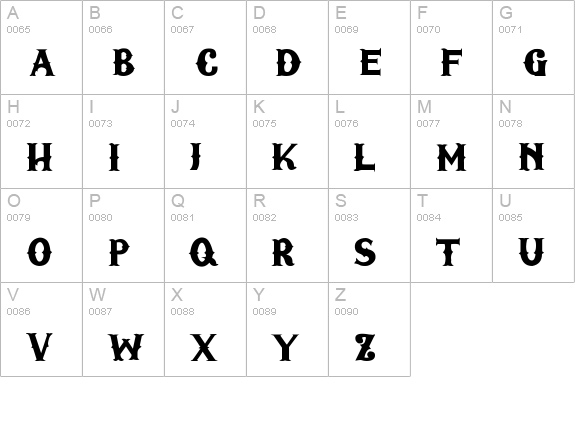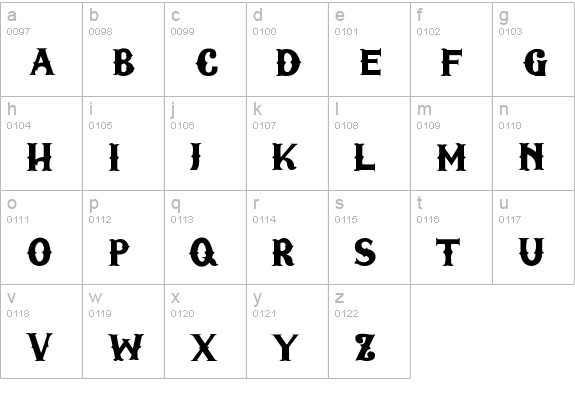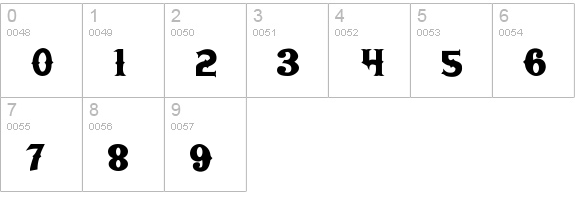
Fridays Font Details
Fridays font is a stunning typographic masterpiece that exudes elegance and sophistication. With its sleek lines and graceful curves, this font captures the essence of modern design while maintaining a timeless appeal. The letters are perfectly balanced, creating a harmonious flow that is pleasing to the eye. But what sets Fridays font apart from the rest is that it is not only visually captivating, but also free. Yes, you read that right – this incredible font is freely available to download at FontsMarket.com. Whether you're a professional designer, a creative enthusiast, or simply someone who appreciates the beauty of typography, Fridays font is a must-have addition to your collection. Imagine the endless possibilities this font offers – from crafting eye-catching logos and branding materials to designing stunning invitations and social media graphics. Its versatility knows no bounds, making it a valuable asset for any creative project. The attention to detail in Fridays font is evident in every stroke and curve. Each letter is meticulously crafted to create a seamless aesthetic that is both captivating and legible. Whether used in large headlines or small body text, this font maintains its clarity and readability, ensuring that your message is effectively communicated. Downloading Fridays font from FontsMarket.com is a breeze. Simply visit the website, locate the font, and with just a few clicks, it will be yours to use and enjoy. Embrace the freedom of expression that this font offers and let your creativity soar. So, what are you waiting for? Get your hands on Fridays font today and experience the beauty of typography at its finest.